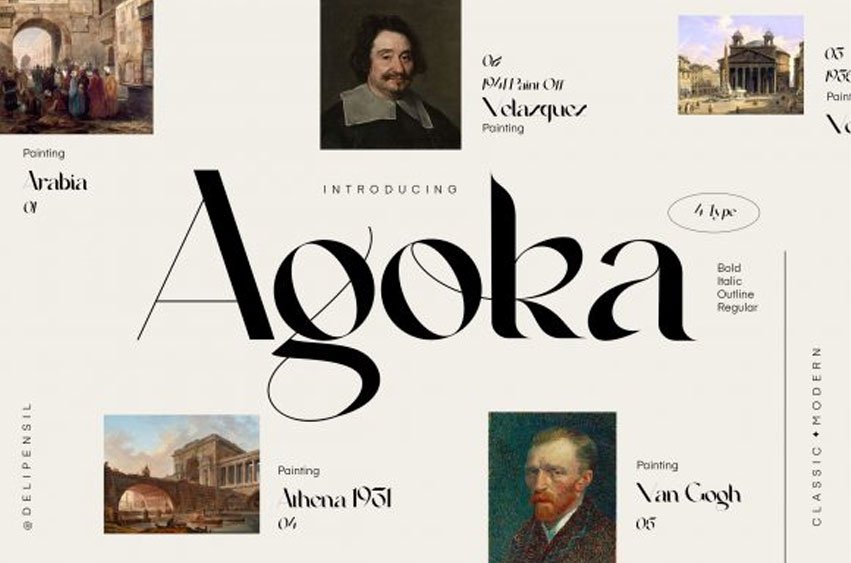
Agoka Font is a cool, elegant and distinct serif font.
Whatever the topic, this font will be a wonderful asset to your font library, as it has the potential to enhance any creation.